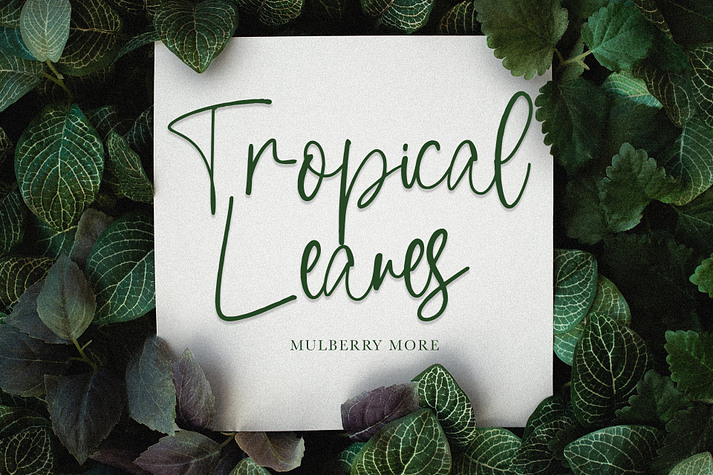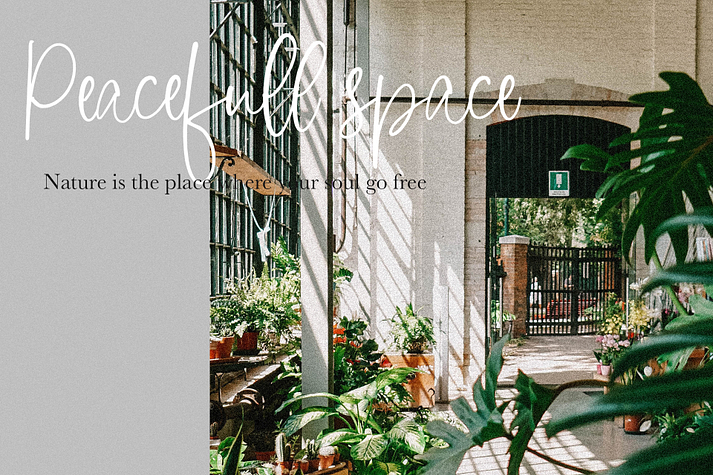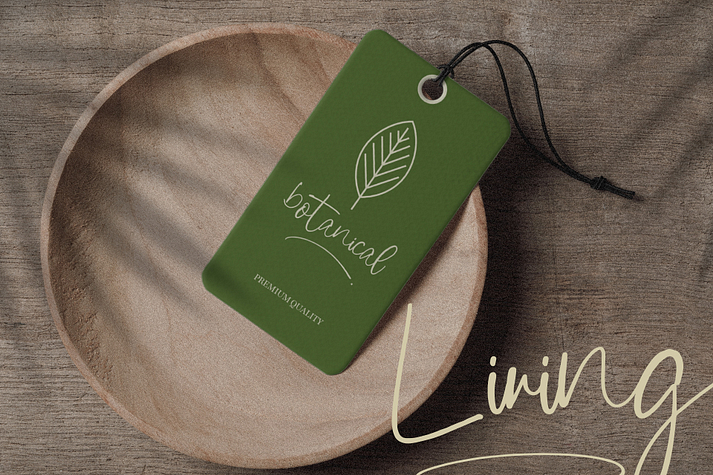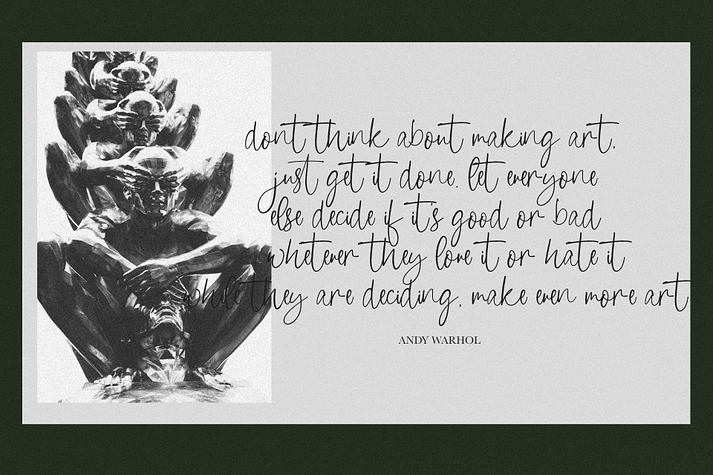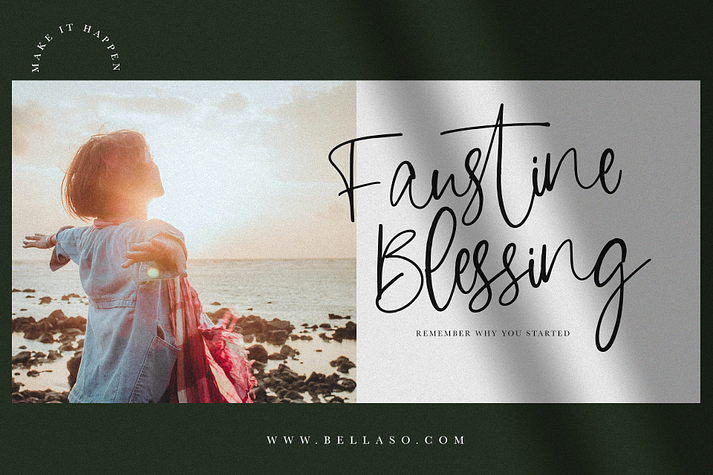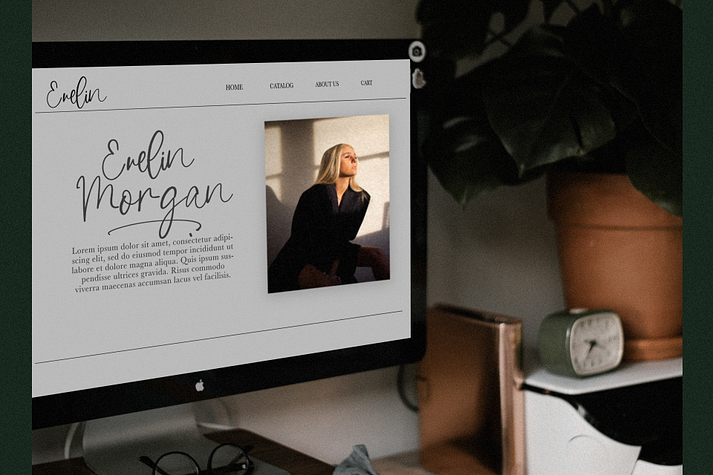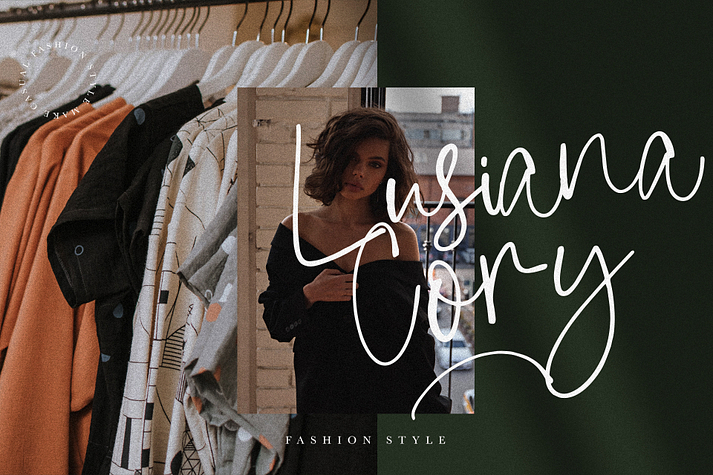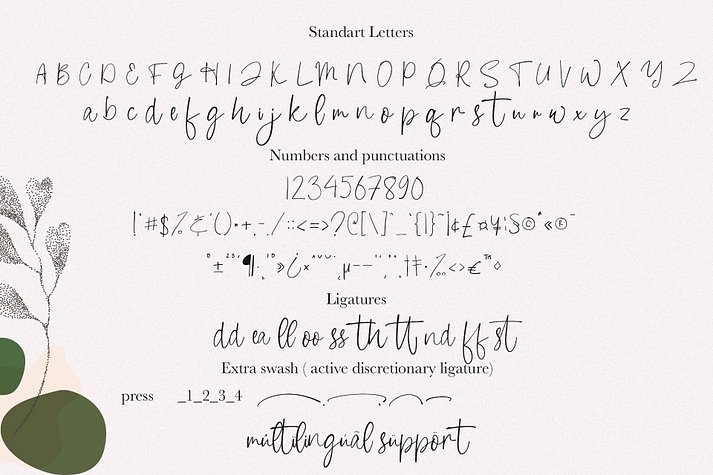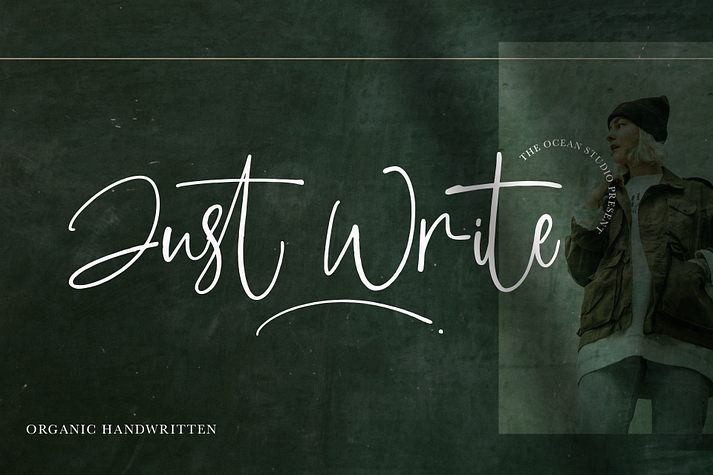
Just Write
Just Write is a font family published by Jolicia Type.
Just Write is an organic handwritten font that is suitable for branding, signature, wedding invitation, promotion, product packaging, and other needs. This font is modern, simple. You will get full set of lowercase and uppercase letters, numerals and punctuation, multilingual symbols.